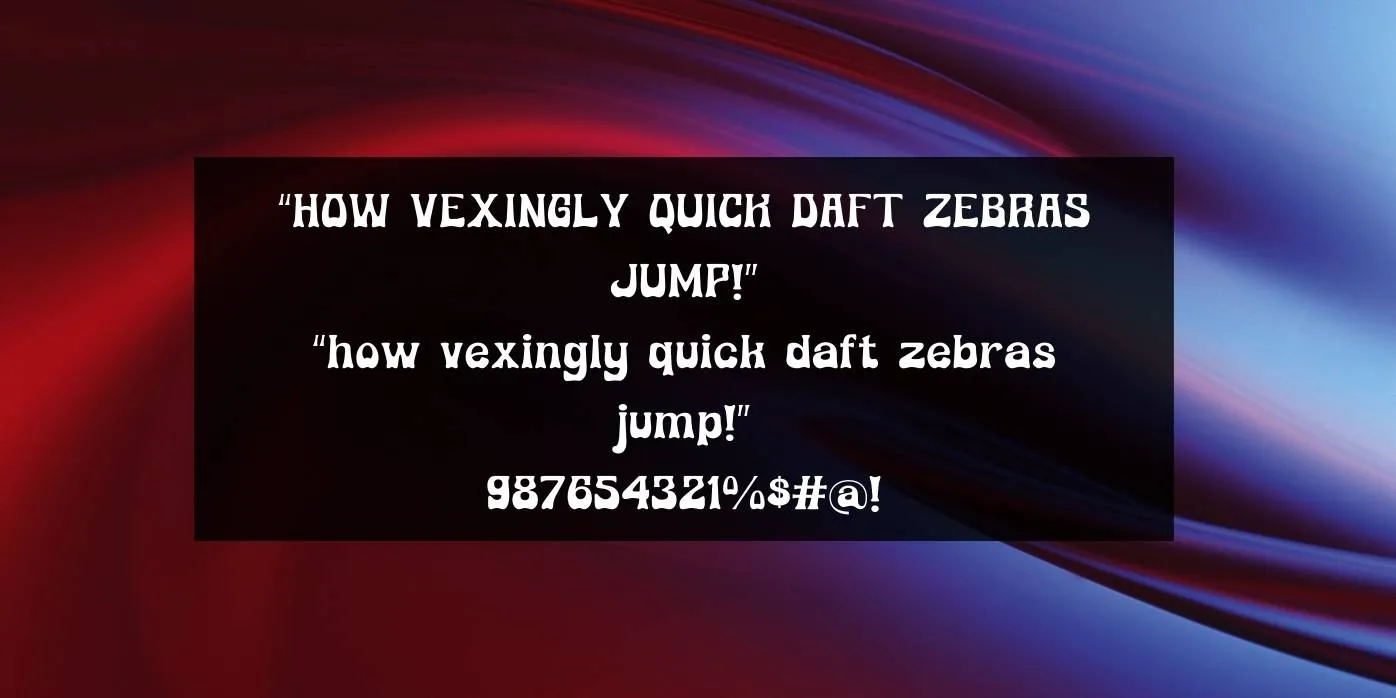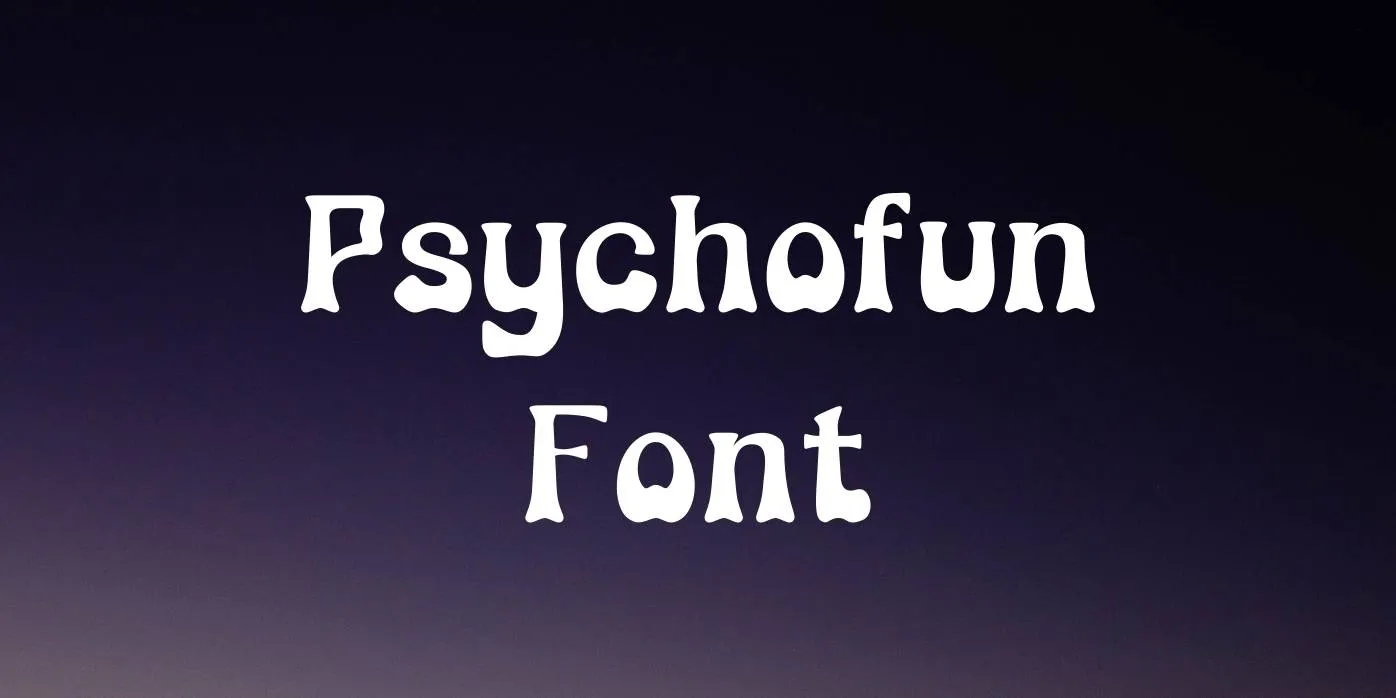
Psychofun Font
Psychofun Font belongs to the Display font family. The main designer of this font family is Alit Designs. It is well famed for CSS. This font family consists of more than a hundred unique Glyphs.
Also, this family includes different characters. It is not a part of google fonts. Psychofun Font family includes three famous styles regular, bold, and heavy. For more classic features, you will have to use its alternative pulp fiction font which has the same features.
This typeface is designed for different types of designs. This is suitable for those projects who need a professional, classic, and stylish look. After using this typeface, you will get the best and most classic results and achieve a good response from your clients. Its worth is increasing day after day.